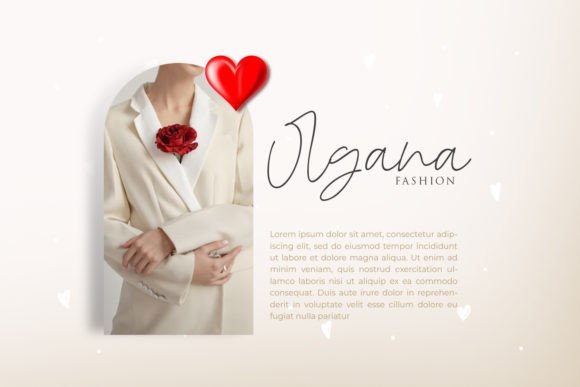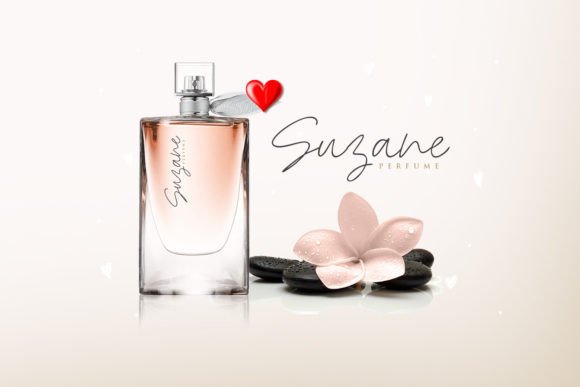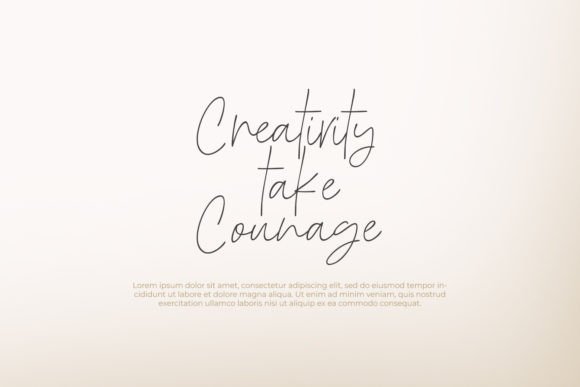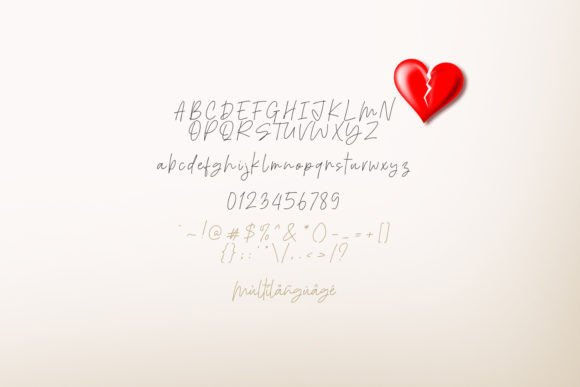
Introduction to Ohbreak Font
Have you ever stared at a blank canvas, struggling to find the perfect font to bring your creative project to life? We’ve all been there, searching high and low for that elusive design element that sets our work apart. But what if I told you that your search is over? Introducing the Ohbreak Font, a stunning script that adds a touch of elegance to any design.
With its beautiful curves and high-quality design, the Ohbreak Font is the perfect addition to any designer’s toolkit. Whether you’re working on a poster, logo, magazine cover, or book banner, this versatile font is sure to make your design stand out. And the best part? It’s available for free download, making it a valuable resource for any creative project.
So why settle for an ordinary font when you can have a high-quality design resource like the Ohbreak Font? With its transparent background and versatility, this font is the perfect choice for designers looking to elevate their work and take their designs to the next level.
Key Features of Ohbreak Font
- High-quality design resource ideal for creative projects requiring a unique aesthetic.
- Designed with a focus on legibility and clarity, making it suitable for use in various contexts, from headings to body text.
- Part of a curated collection of fonts designed to inspire creativity and enhance visual storytelling in design projects.
Honest Review: Ohbreak Font
I recently stumbled upon the Ohbreak Font while searching for a unique design resource to enhance a creative project. As a designer, I was eager to put it to the test.
What works well: ✨ The Ohbreak Font offers high-quality typography with a transparent background, making it an ideal choice for any design project. The font’s modern design is both sleek and elegant, perfect for a variety of applications, from logos to web design.
Here are some of the key features I appreciated:
- High-quality typography
- Modern and elegant design
However, I did encounter a few limitations: ⚠️ The font only comes in a limited number of weights and styles, which may not be suitable for every project. Additionally, the font may not be compatible with all operating systems.
Overall, I’m impressed with the Ohbreak Font. While it may have some limitations, its unique design and high-quality typography make it a valuable addition to any designer’s toolkit.
Tips for Getting the Most Out of Ohbreak Font
For the best results, use Ohbreak Font in conjunction with a high-quality image or background. This will help the font stand out and add visual interest to your design project. You can also experiment with different font sizes and colors to create a unique look.
Ohbreak Font is perfect for a variety of creative projects, including graphic design, digital art, and typography. You can use it to create eye-catching headlines, titles, or quotes. Since Ohbreak Font is free to download, it’s a great resource for designers on a budget.